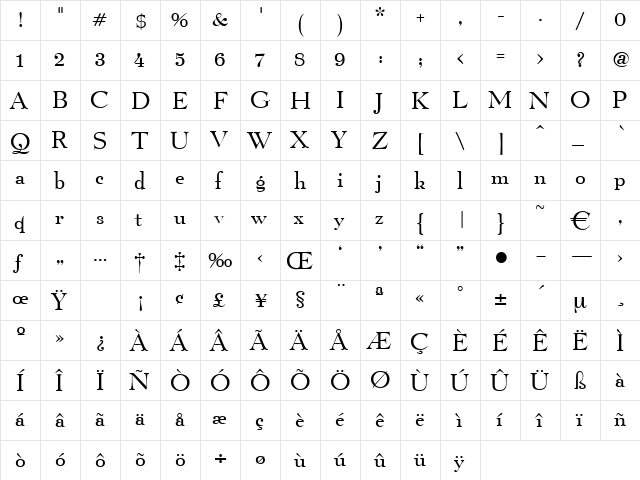
QuartierBook Regular
Design Context for QuartierBook Typeface
QuartierBook offers clean, dependable letterforms without strong stylistic allegiance, making it a practical choice for designers who need flexibility.